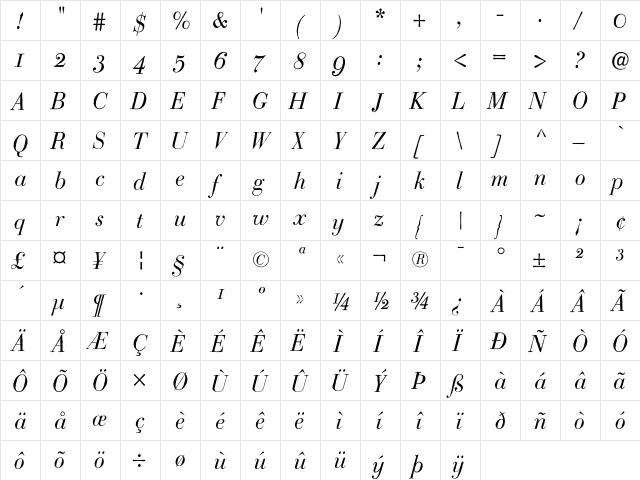
BodoniClassicHD Medium Italic
Design Context for BodoniClassicHD Typeface
BodoniClassicHD wears its vintage influences proudly, with letterforms that recall mid-century signage, classic packaging, and nostalgia-driven design. The slanted form adds forward momentum and visual energy.
Perfect for vintage-inspired branding, retro packaging, nostalgia campaigns, and period-accurate editorial design.
Font Pairing: Combine BodoniClassicHD with a simple slab or neutral sans — period-accurate companions reinforce the vintage feel without competing for attention.
Pro Tip: Use BodoniClassicHD for headlines and pull quotes rather than body copy — its personality is best appreciated in short, focused bursts.